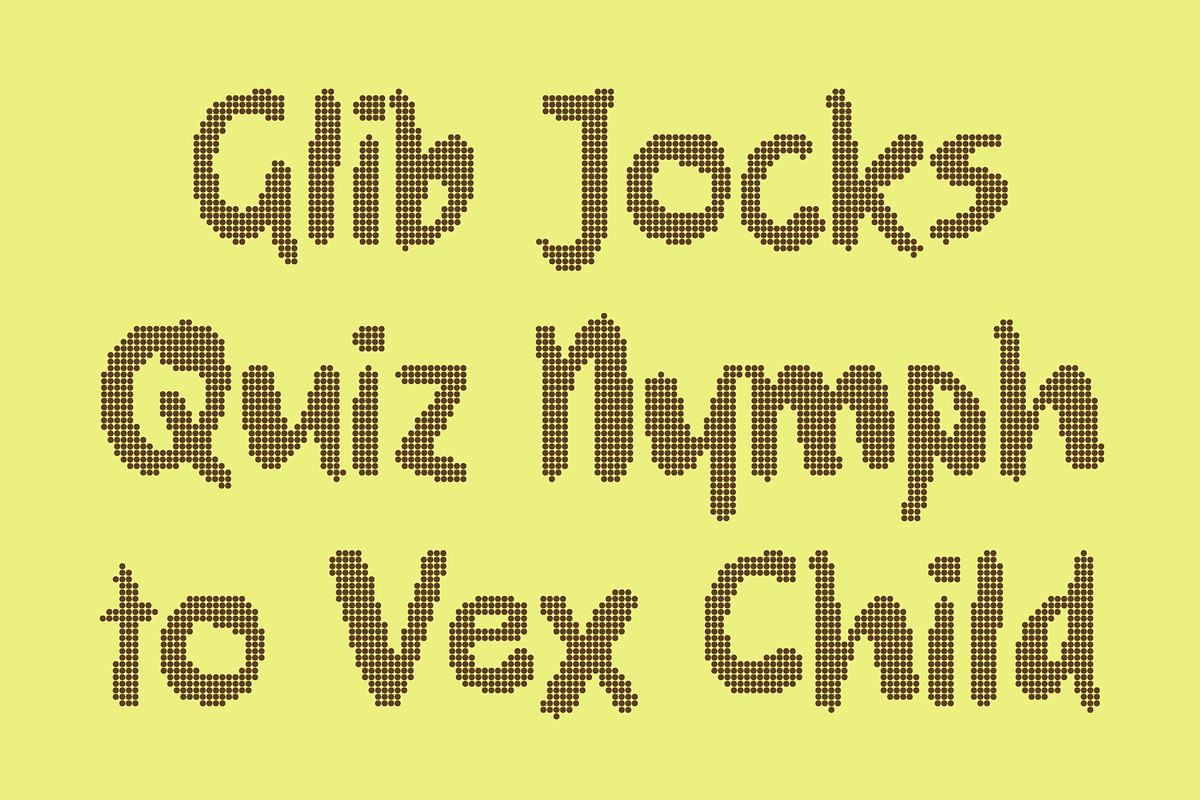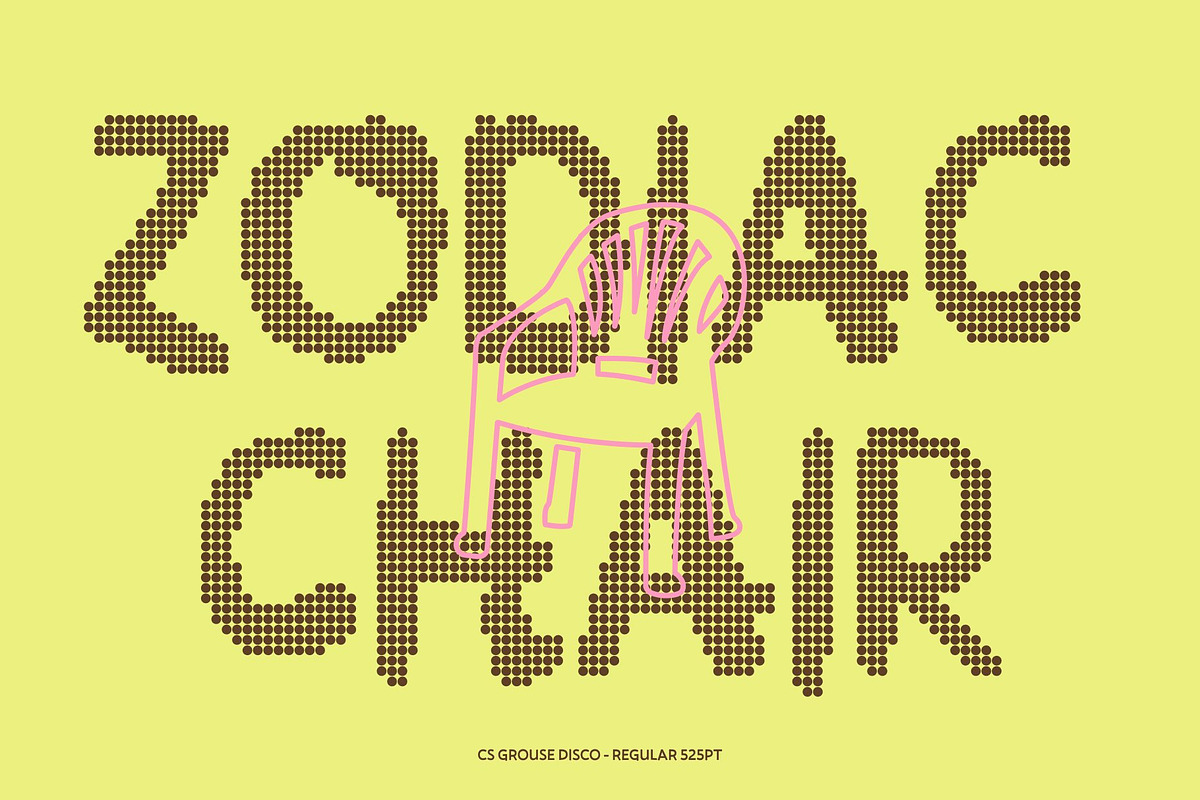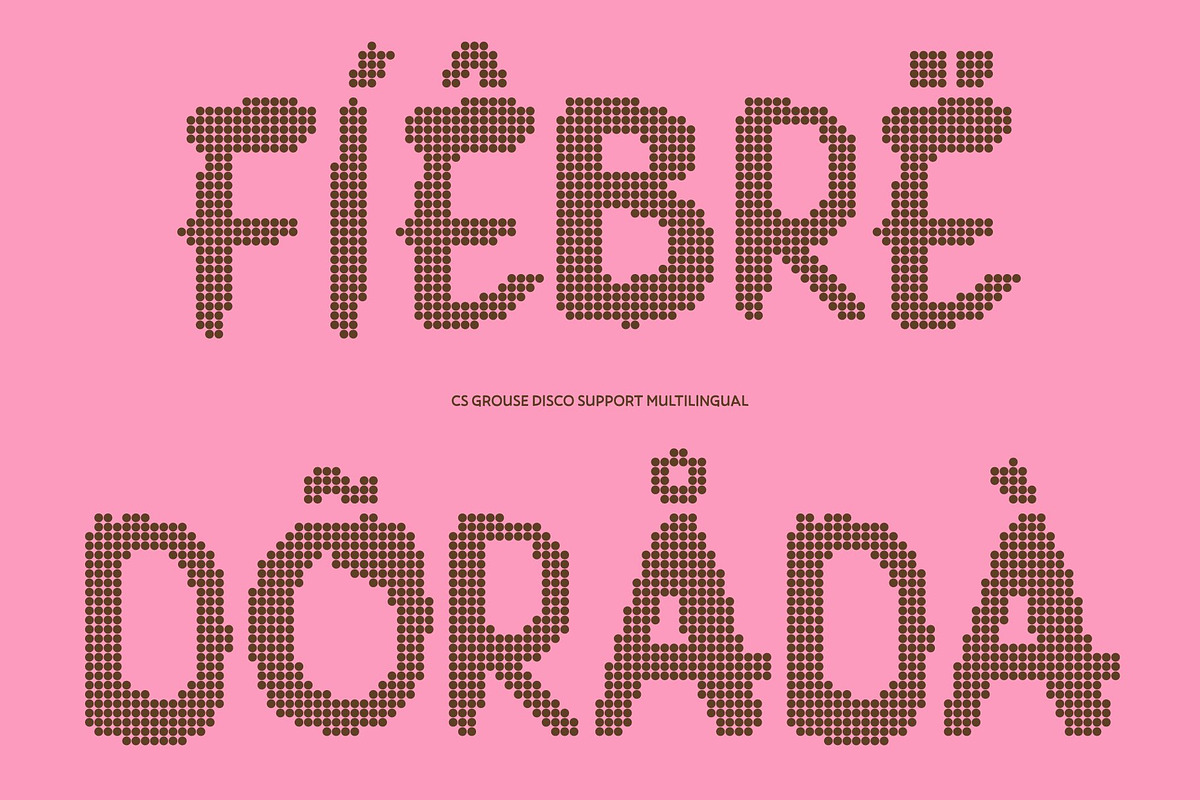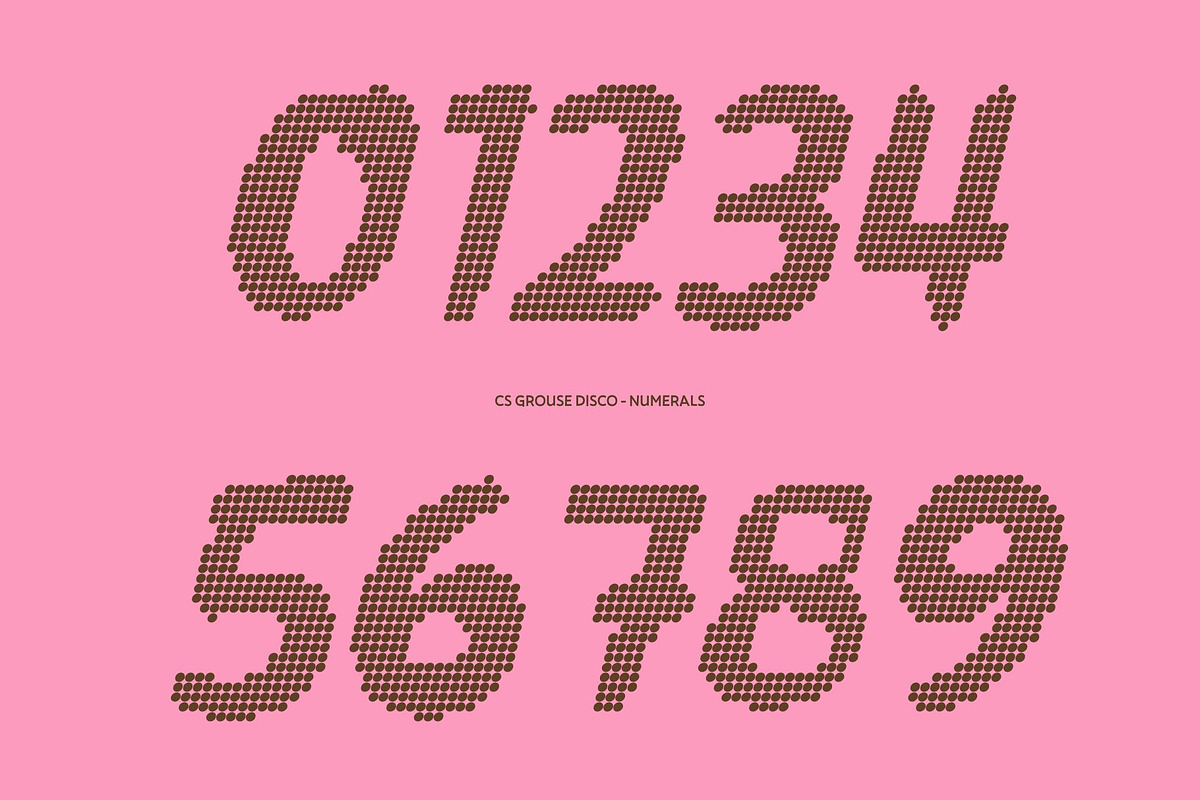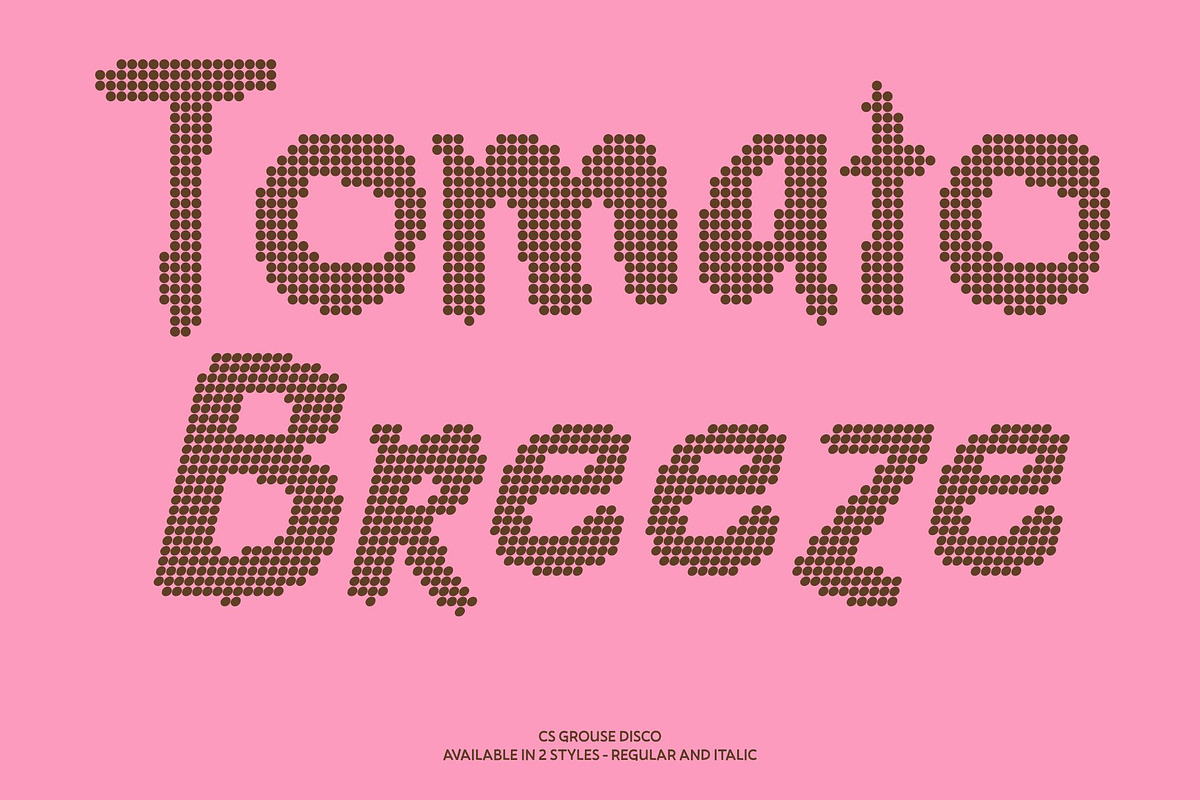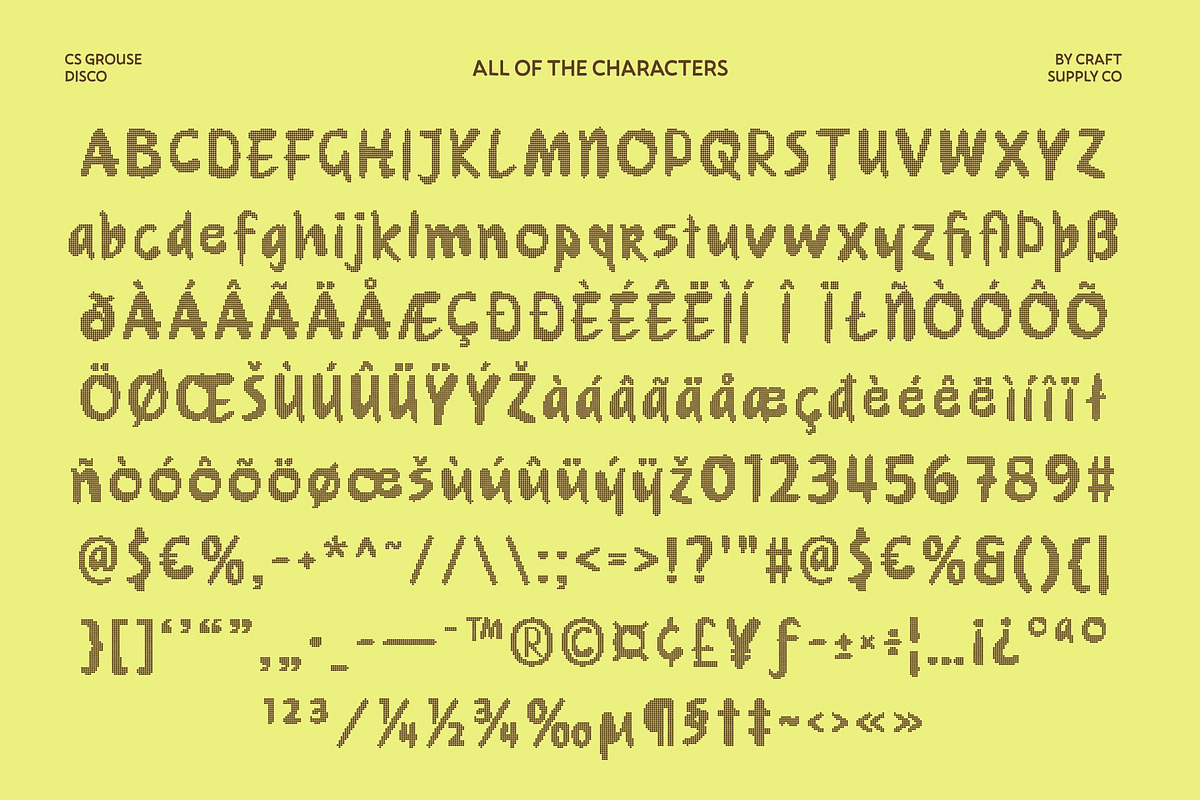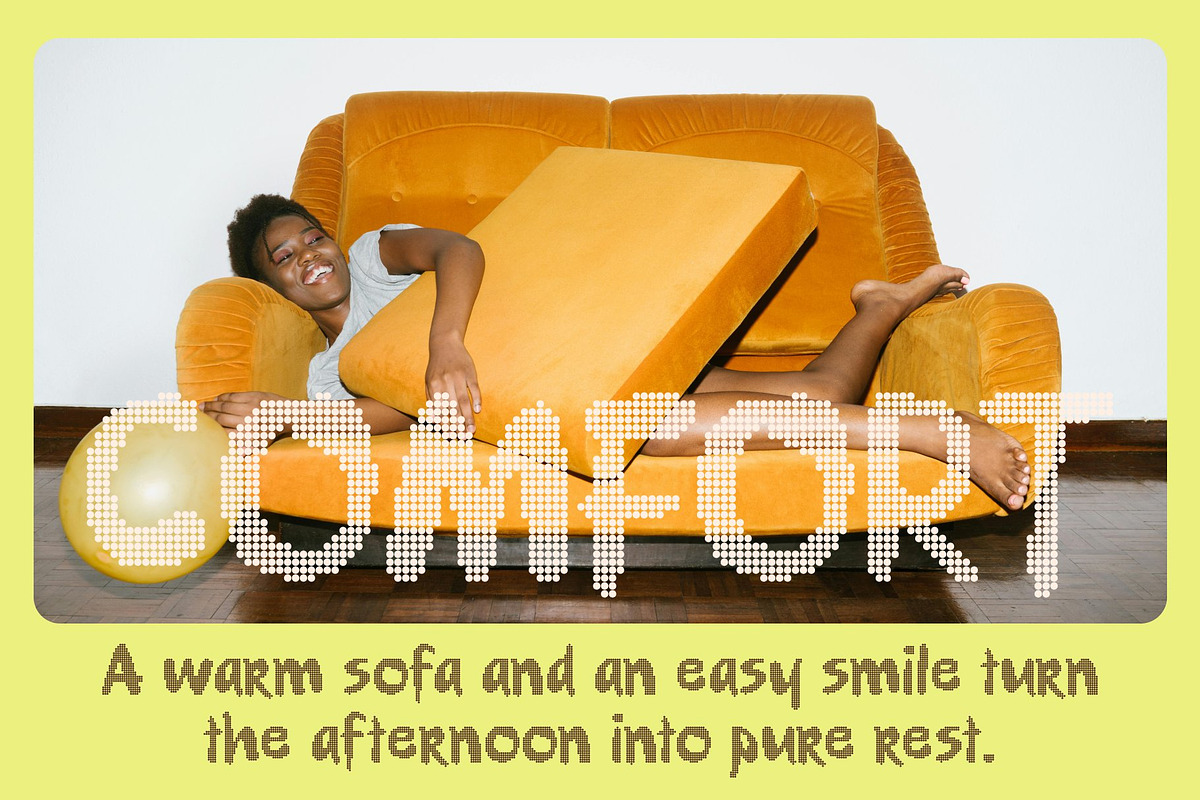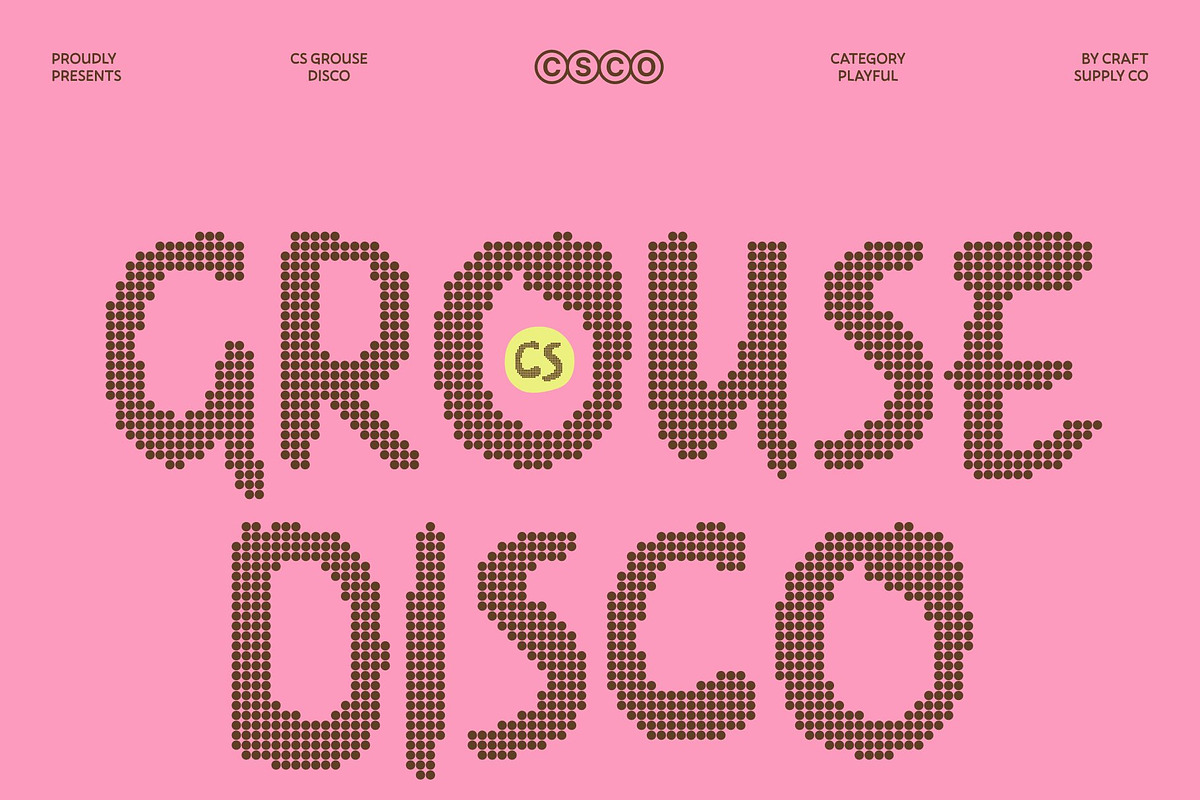
CS Grouse Disco
CS Grouse Disco – Playful Modern Display Font
Modern Handwritten Style with Disco Energy This is a modern display font with a distinctive handwritten style, now infused with vibrant disco flair. Its clean, neat letterforms blend effortlessly with an approachable flow, while a subtle rhythmic bounce gives every word a sense of motion. The result is a polished yet playful typeface that feels stylish, lively, and ready to shine.
Cheerful Vibe with Dance-Floor Spark Designed to radiate joy and celebration, this font captures attention with its upbeat personality. The handwritten essence softens its structure, adding warmth and friendliness, while the disco-inspired groove brings energy and excitement. Each letter feels animated like it’s moving to music under shimmering lights.
Clean Yet Expressive with Rhythmic Flow Every character is crafted for clarity while preserving a playful, expressive rhythm. The balance between structured forms and spontaneous curves creates harmony between modern precision and creative freedom. This ensures excellent readability without losing its bold, charismatic presence perfect for standout headlines and eye-catching branding.